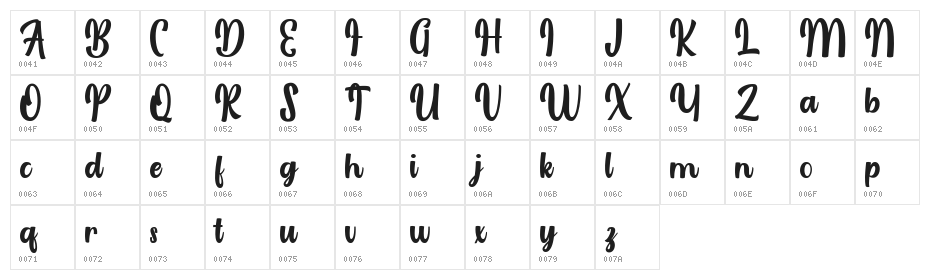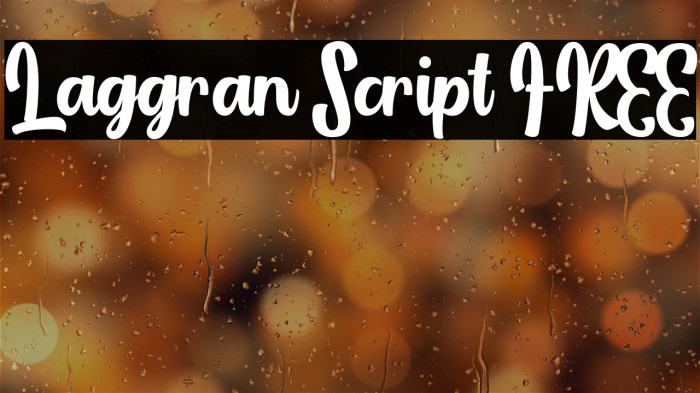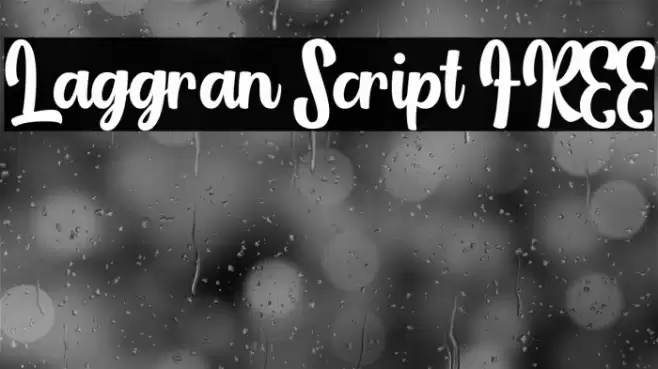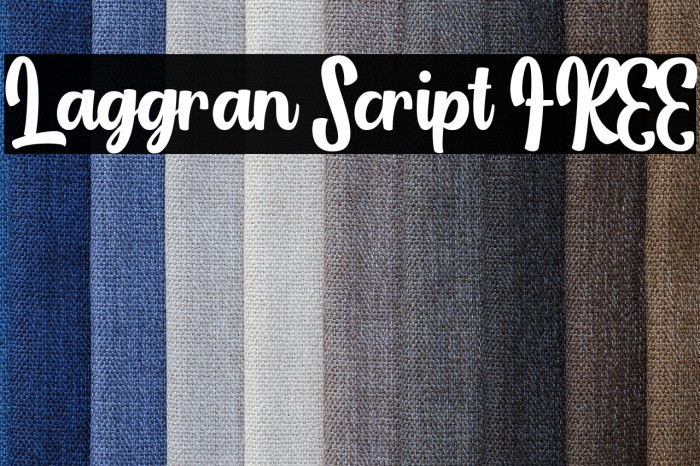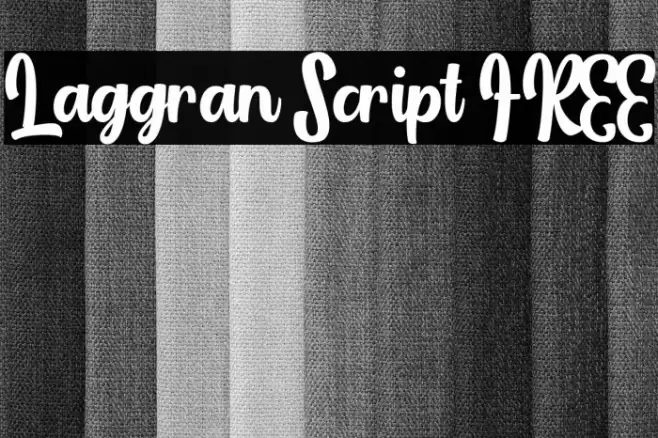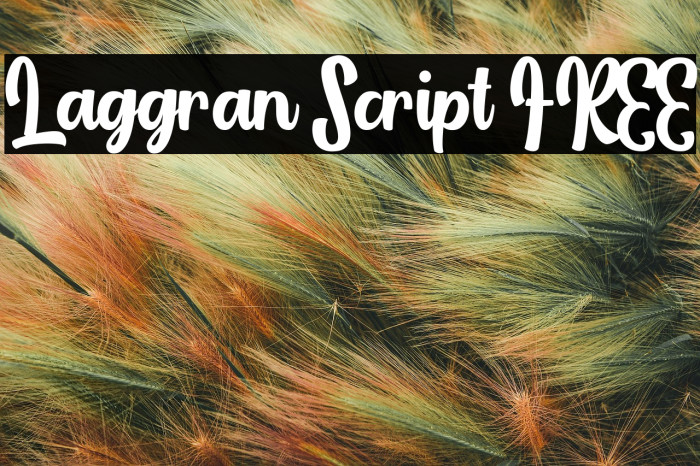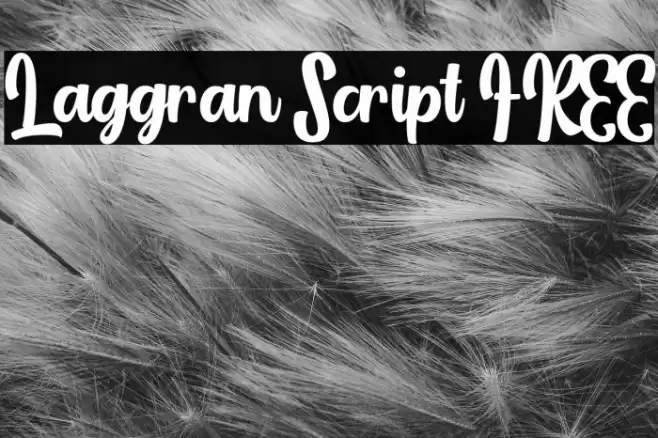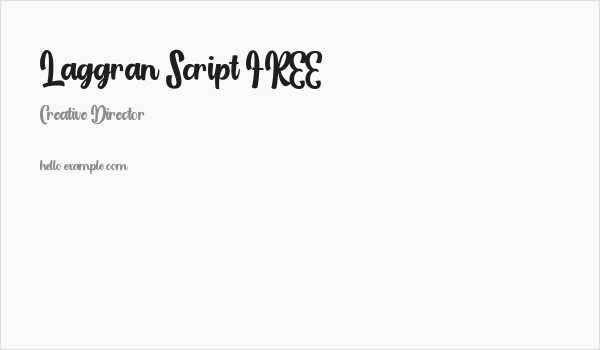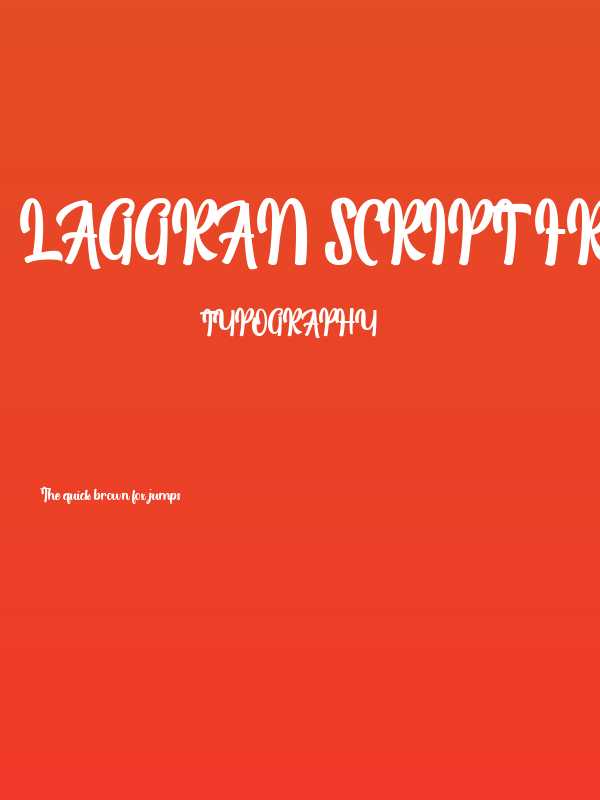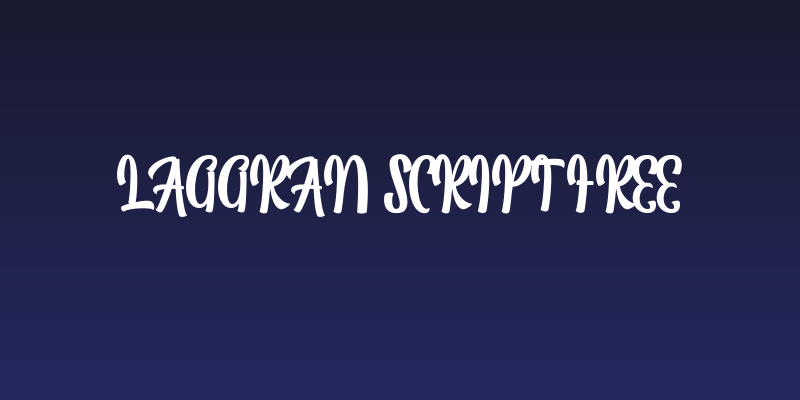
Laggran Script FREE Font
Laggran Script FREE Description
This font features a bold, flowing script style with a playful and dynamic appearance. The letters are interconnected, creating a sense of continuity and movement. The uppercase characters are tall and elegant, while the lowercase letters maintain a consistent rhythm with smooth curves and loops. The font exudes a sense of creativity and energy, making it suitable for designs that require a personal touch. The overall look is both modern and artistic, with a handcrafted feel that adds warmth and character.
| Use Case | Logos, Invitations, Creative projects |
| Proposed Projects | Ideal for branding, invitations, greeting cards, and creative projects that require a personal and artistic touch. |